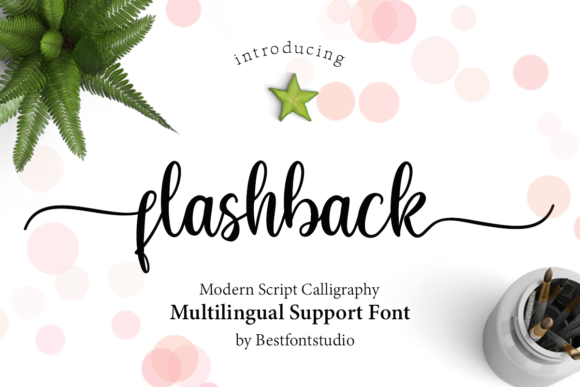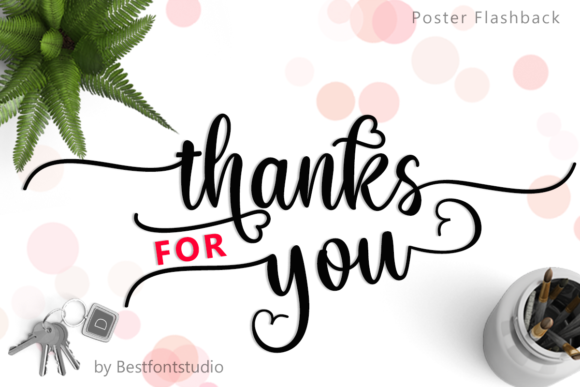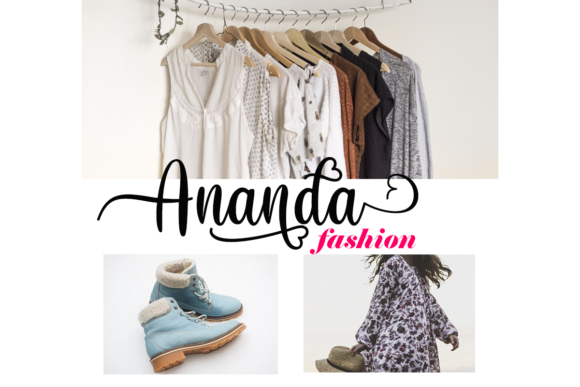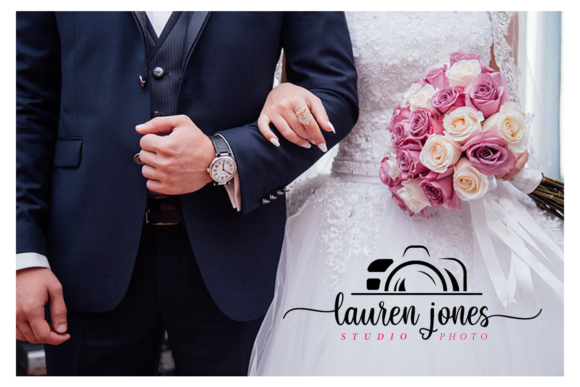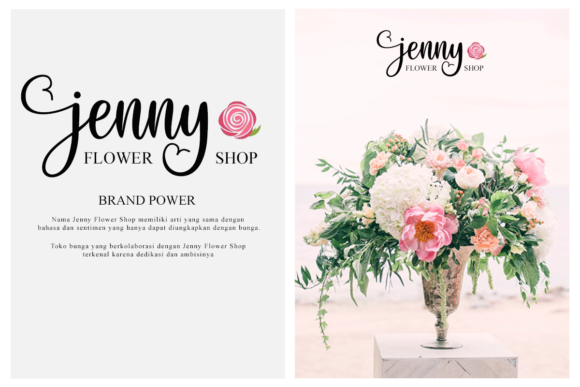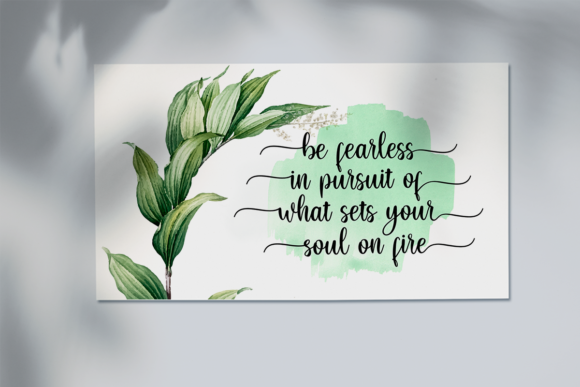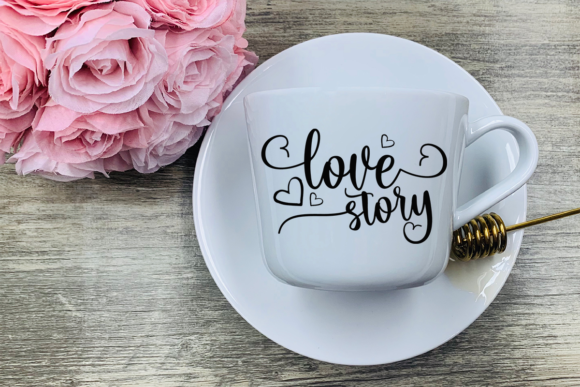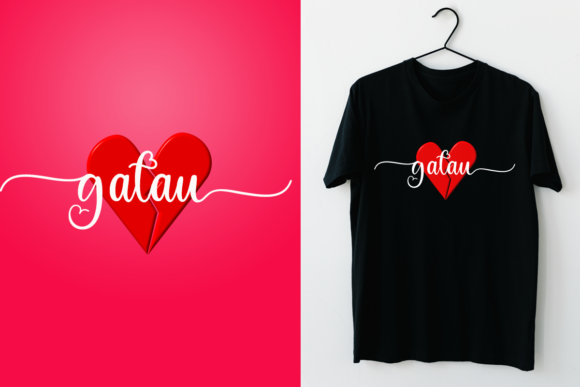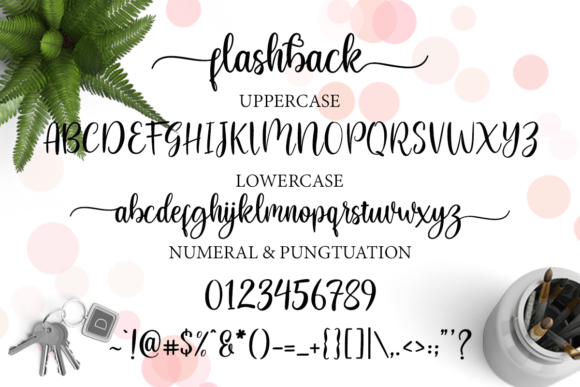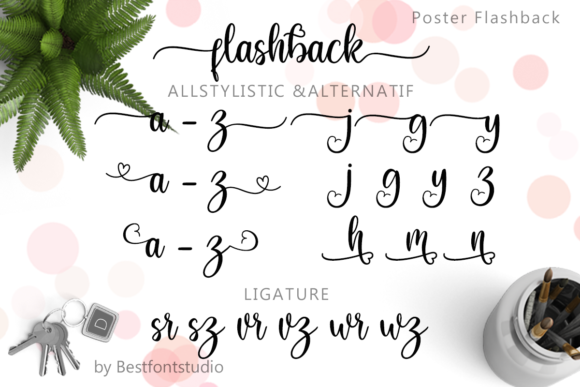
Flashback Font
About Flashback Font
Flashback is a radiant and beautiful handwritten font with a delicate charm. Use it to add a romantic twist to any design project.